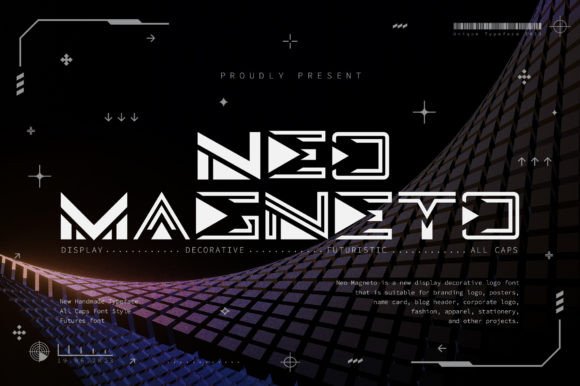
Introducing Neo Magneto Font, the ultimate choice for your creative needs! Crafted with passion and expertise by the talented Jamalodin, this display font is a true masterpiece that will elevate your projects to new heights.
Neo Magneto Font is not just any font – it's the best font for retina display, ensuring crystal-clear and captivating visuals. With its mesmerizing decorative elements, this font is perfect for branding logos, posters, name cards, blog headers, corporate logos, fashion designs, apparel, stationery, and so much more.
When it comes to making a lasting impression, Neo Magneto Font truly stands out. Its unique and eye-catching design will effortlessly grab attention and leave a memorable impact on your audience.
Embrace the power of Neo Magneto Font and unleash your creativity like never before. Let your imagination run wild as you bring your ideas to life with this versatile font.
Whether you're a seasoned designer or just starting out, Neo Magneto Font is your secret weapon for creating stunning visuals that leave a lasting impression. Its versatility and adaptability make it the perfect choice for any project or industry.
Join the league of successful designers who have already experienced the magic of Neo Magneto Font. With its keyword-rich composition, this font will help you skyrocket your website's visibility and attract the right audience.
Don't settle for ordinary fonts when you can have the extraordinary. Neo Magneto Font is the game-changer that will set you apart from the competition and make your brand shine.
Unlock your creative potential today with Neo Magneto Font – the ultimate font for those who dare to be different.